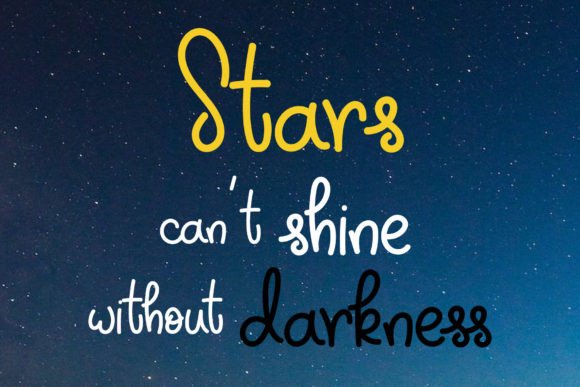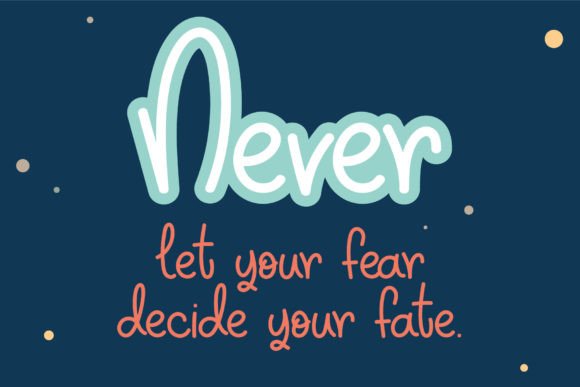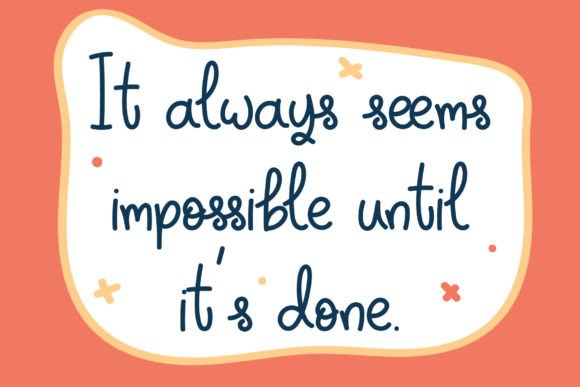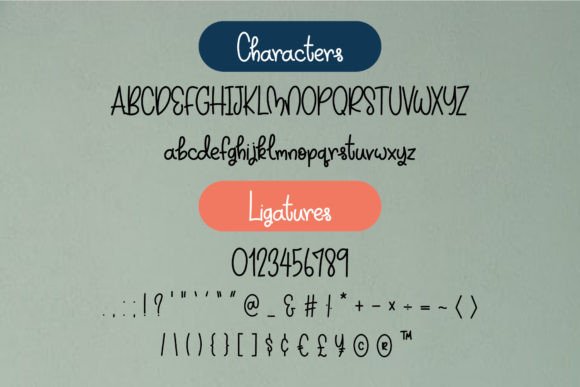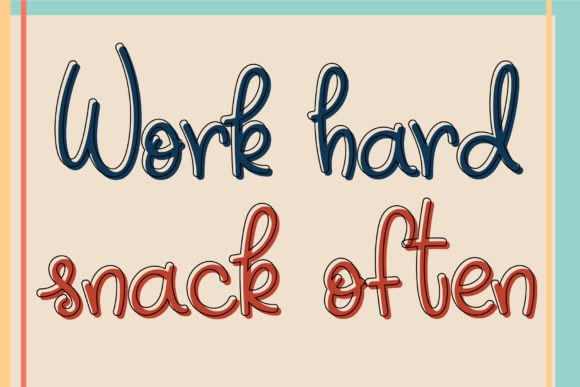
The Joy of Celandine Font: A Designer’s New Best Friend
I’ll never forget the design project that led me to discover the wonderful world of Celandine Font. I was working on a branding project for a local craft fair, and I just couldn’t seem to find the right font to capture the playful, down-to-earth vibe of the client’s handmade products. That was until I stumbled upon Celandine – a simple, joyful handwritten font that instantly resonated with me. ✨
Celandine Font has quickly become a staple in my design toolkit, and for good reason. Here are just a few things I love about it:
- ✅ Readability: Celandine is incredibly easy to read, even at smaller font sizes.
- ✨ Versatility: This font looks amazing in a variety of contexts, from busy backgrounds to standalone headlines.
- ✅ Casual charm: Celandine has a wonderfully down-to-earth feel that makes it perfect for crafty, handmade, or DIY projects.
Of course, no font is perfect, and Celandine does have a few small quirks:
- ⚠️ Limited formal options: As a handwritten font, Celandine isn’t the best choice for formal or corporate projects.
- 🤔 Glyph limitations: While Celandine has a range of OpenType features, it’s not as extensive as some other fonts on the market.
One of the best things about Celandine Font is its range of OpenType features and glyphs. With Celandine, you can access a range of stylistic alternates, including:
- Swashes and flourishes
- Alternate characters
- Ligatures
The Story Behind Celandine Font
Celandine Font was designed with one goal in mind: to create a simple, joyful handwritten font that would bring a touch of warmth and personality to any design project. Inspired by the beauty of everyday handwritten notes and letters, Celandine’s designer aimed to create a font that would feel approachable, friendly, and down-to-earth.
| Font Name | Celandine Font |
| Author | Wanida Toffy |
| What is Celandine Font best used for? | Celandine Font is perfect for crafty, handmade, or DIY projects, as well as any design project that requires a playful, down-to-earth vibe. |
| Is Celandine Font suitable for formal projects? | No, Celandine Font is a handwritten font and is best suited for informal or creative projects. |
| Does Celandine Font come with OpenType features? | Yes, Celandine Font includes a range of OpenType features, including swashes, flourishes, and ligatures. |